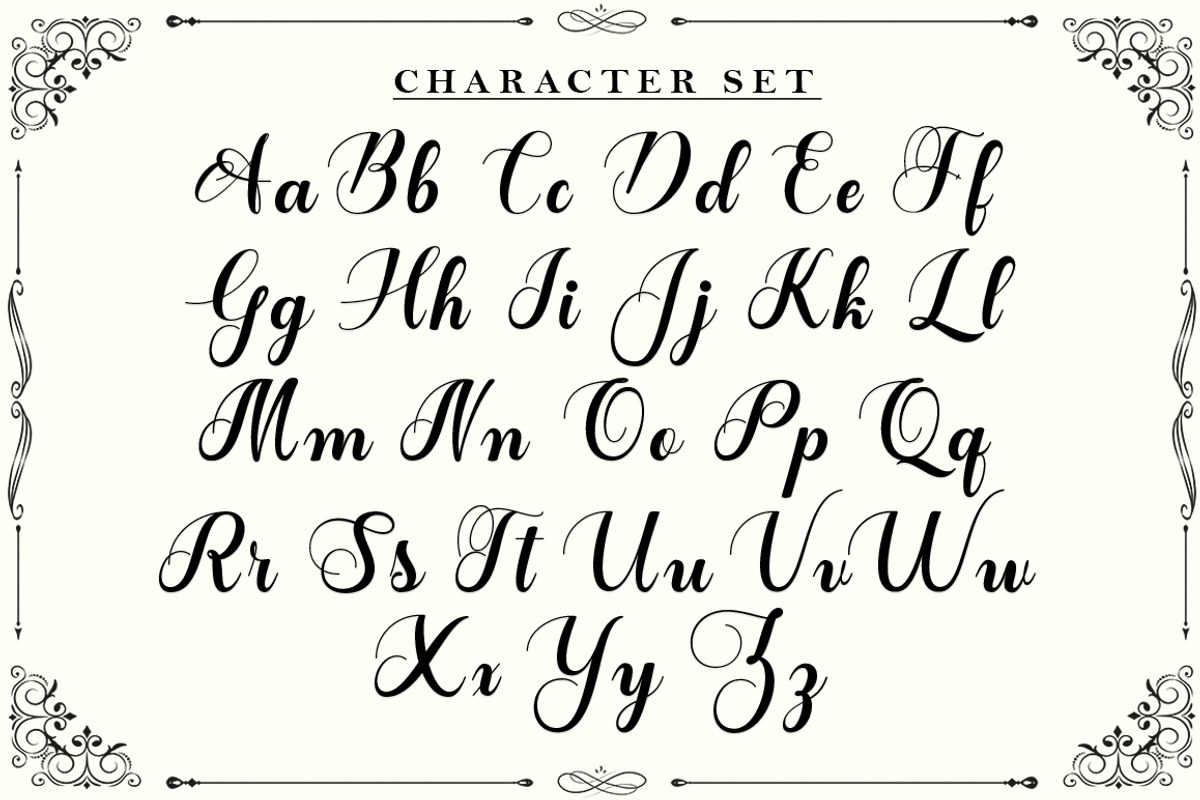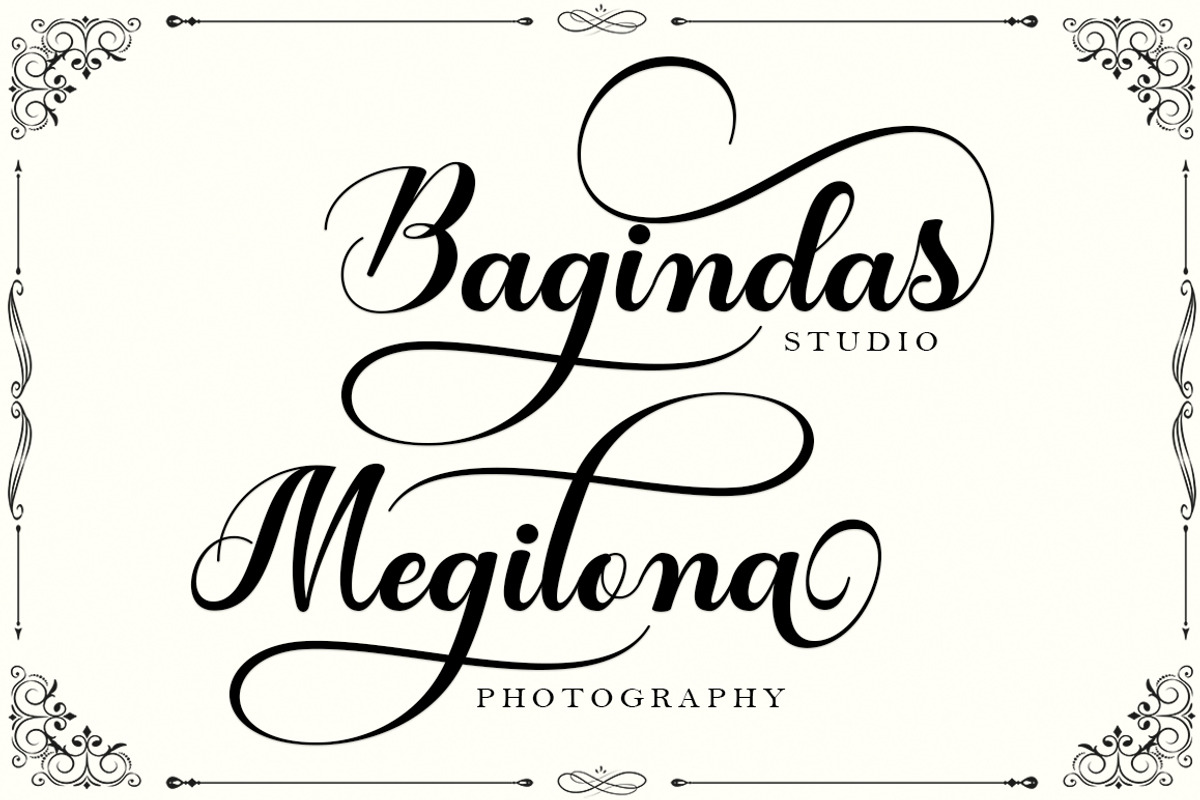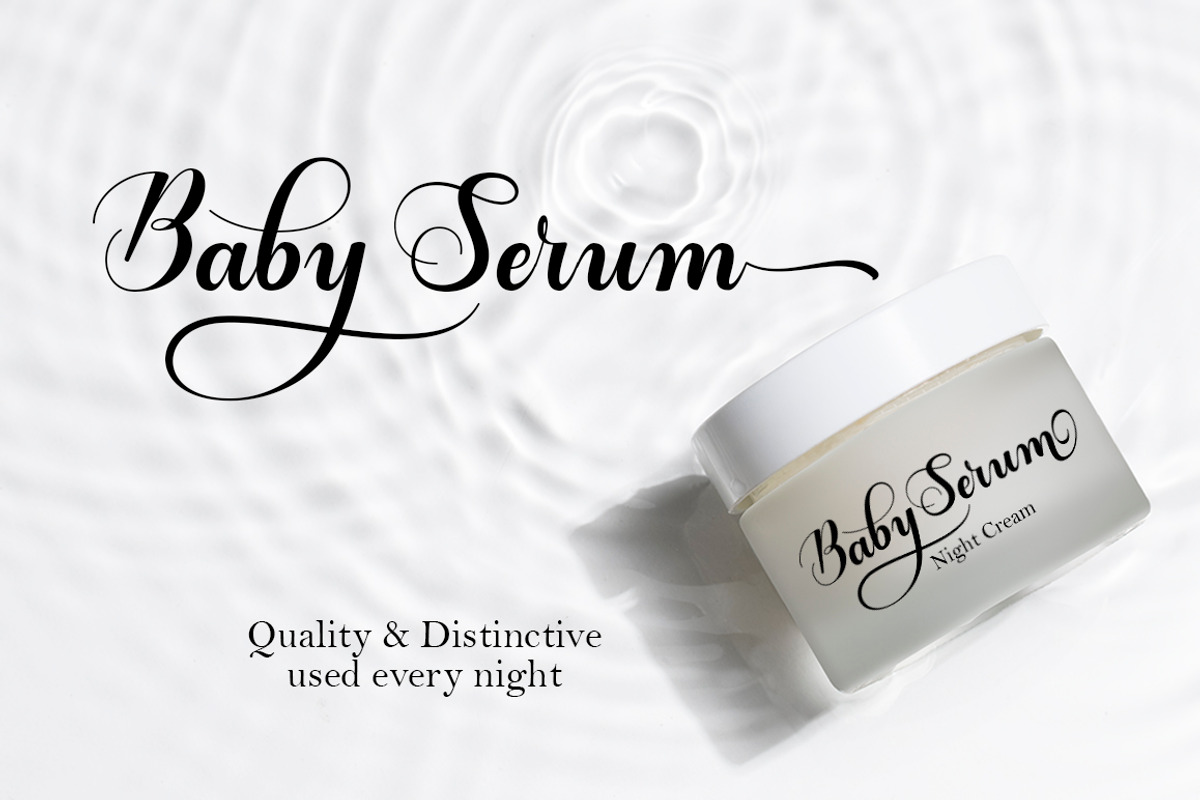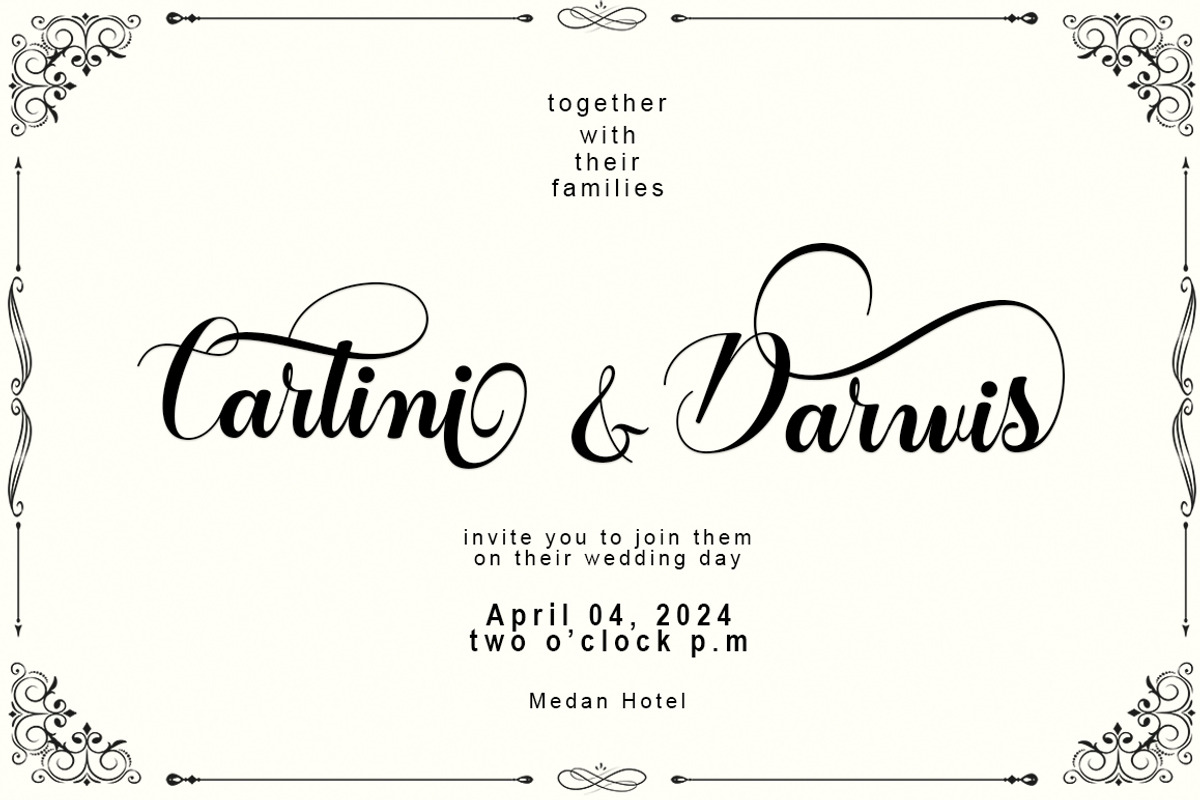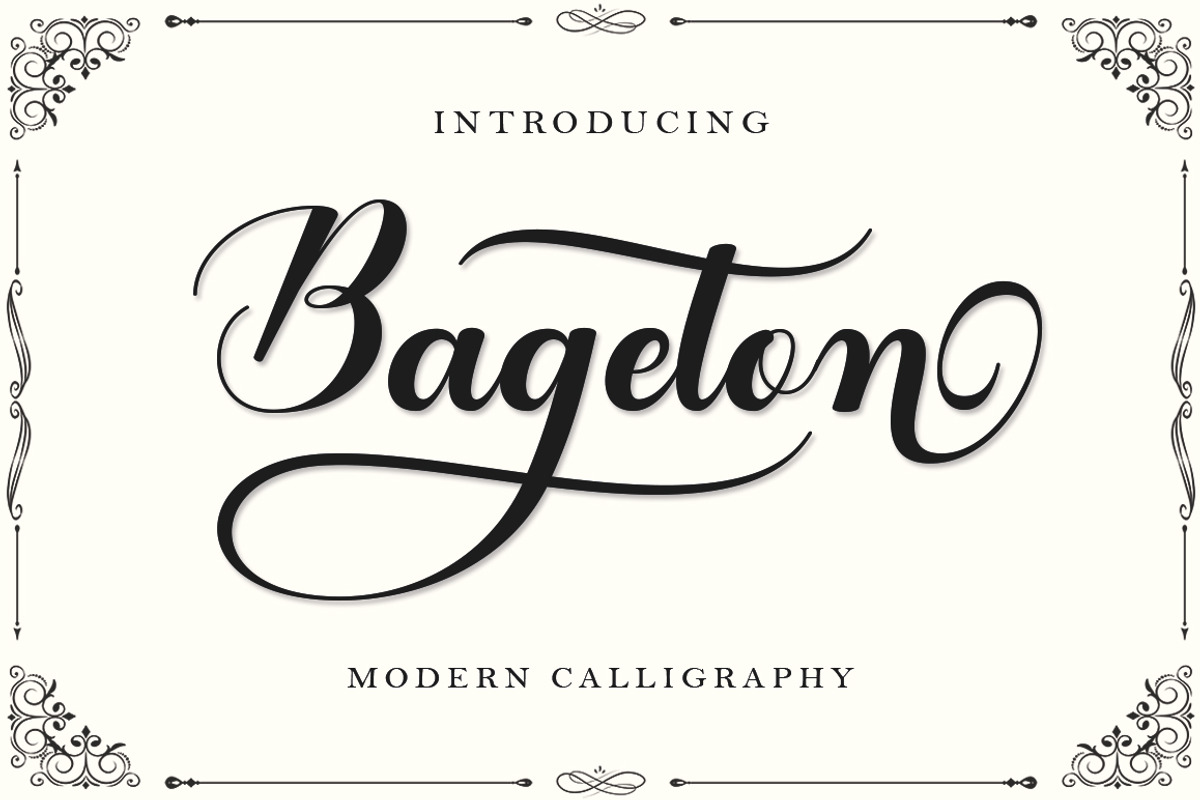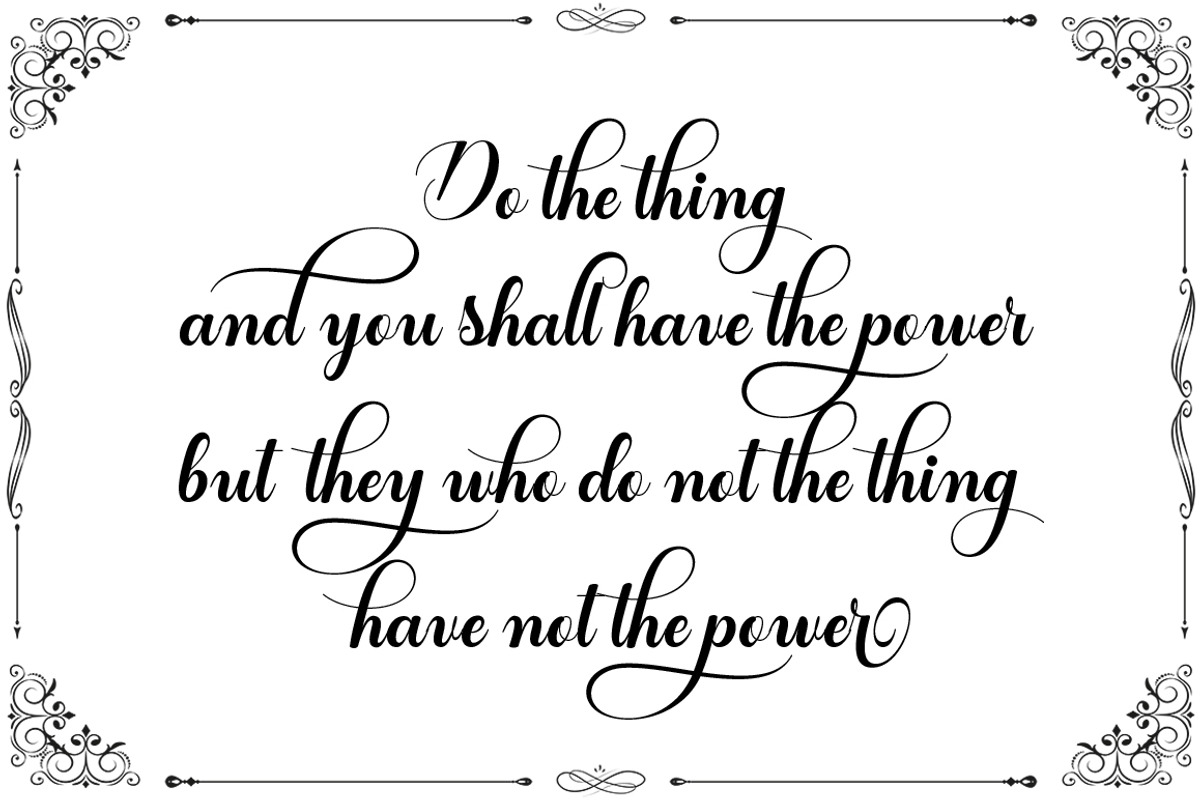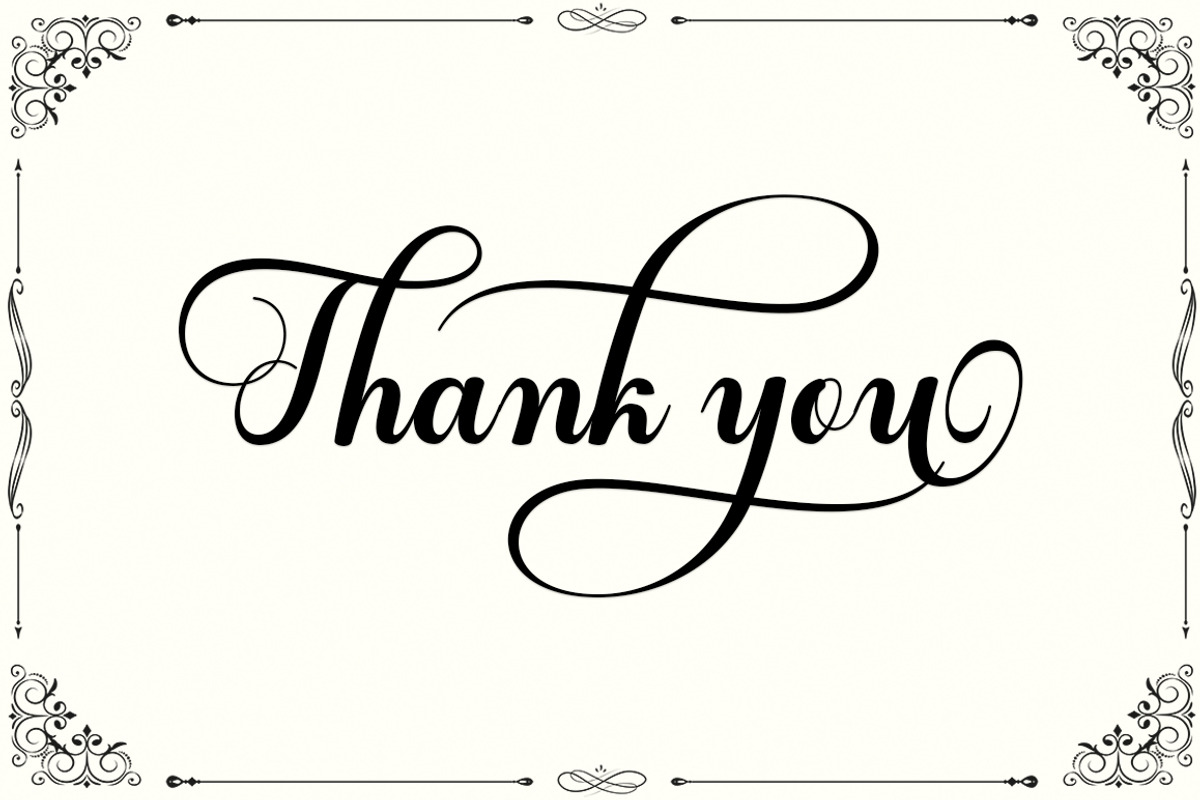
Bageton
Bageton is a beautiful Calligraphy font with many alternative styles, it looks natural, elegant and perfect for extraordinary projects. This font has 350+ glyphs. Bageton is suitable for various products such as invitations, product packaging, offers, product design, crafters, labels, photography, watermarks, logos & branding. Everything can be accessed using software that supports Opentype, such as Adobe Indesign, Adobe CS Illustrator, Adobe Photoshop CC, and Corel Draw.